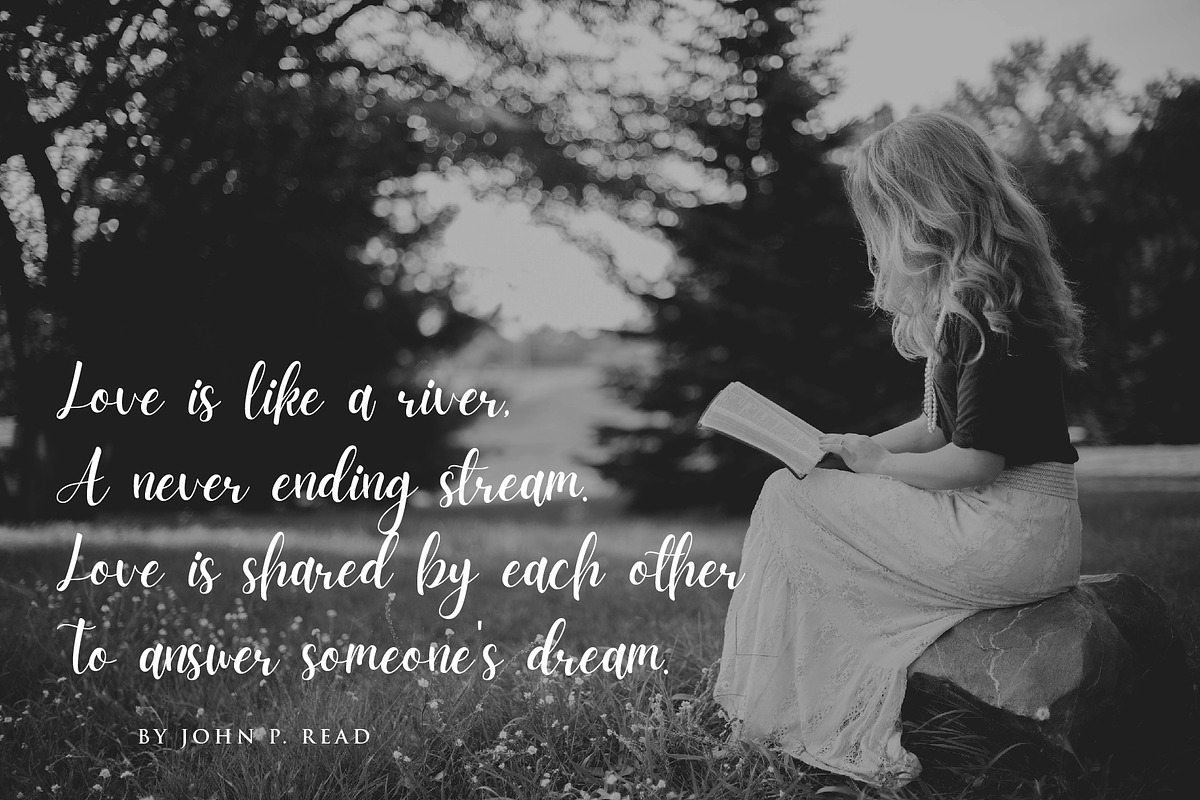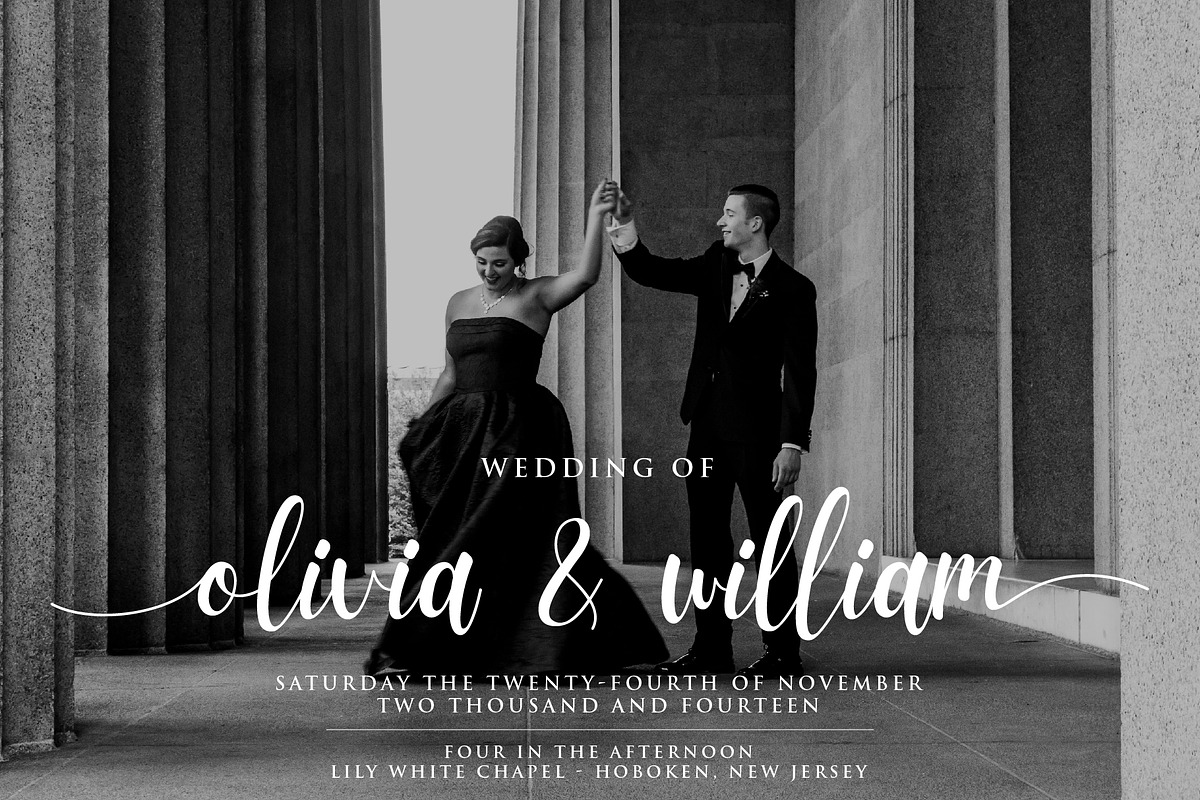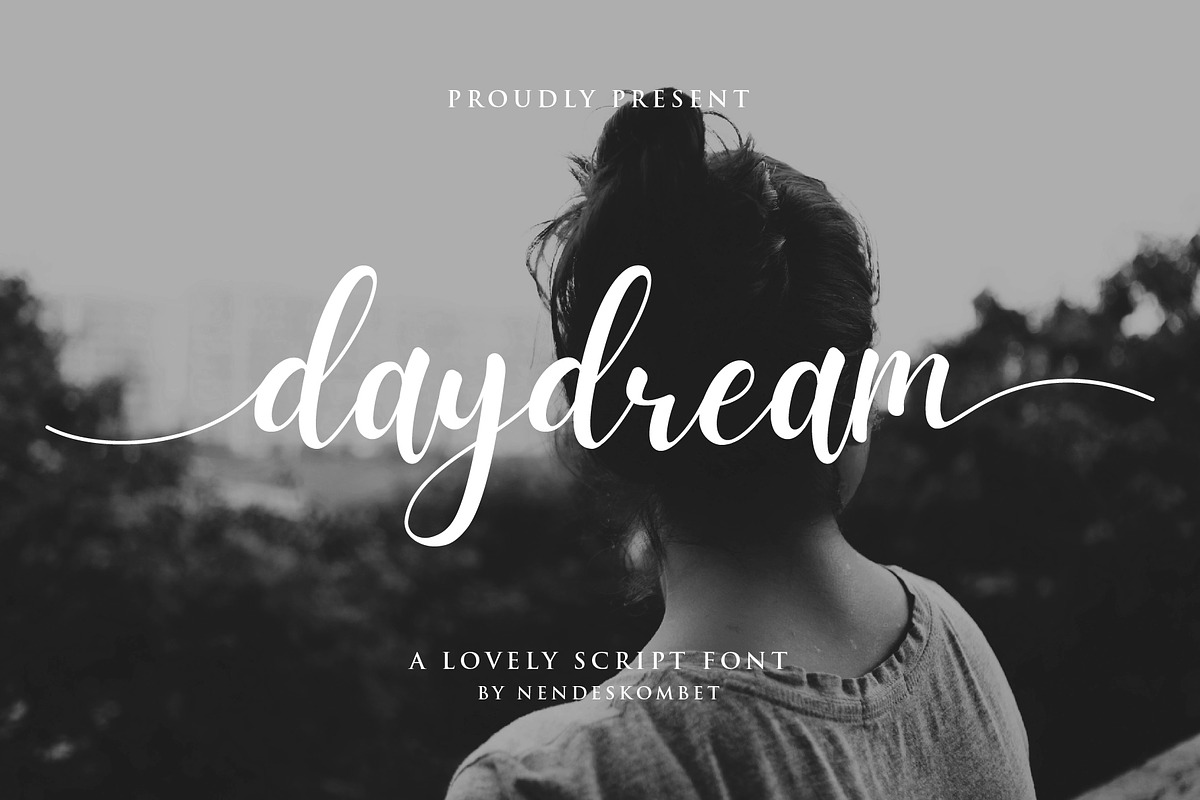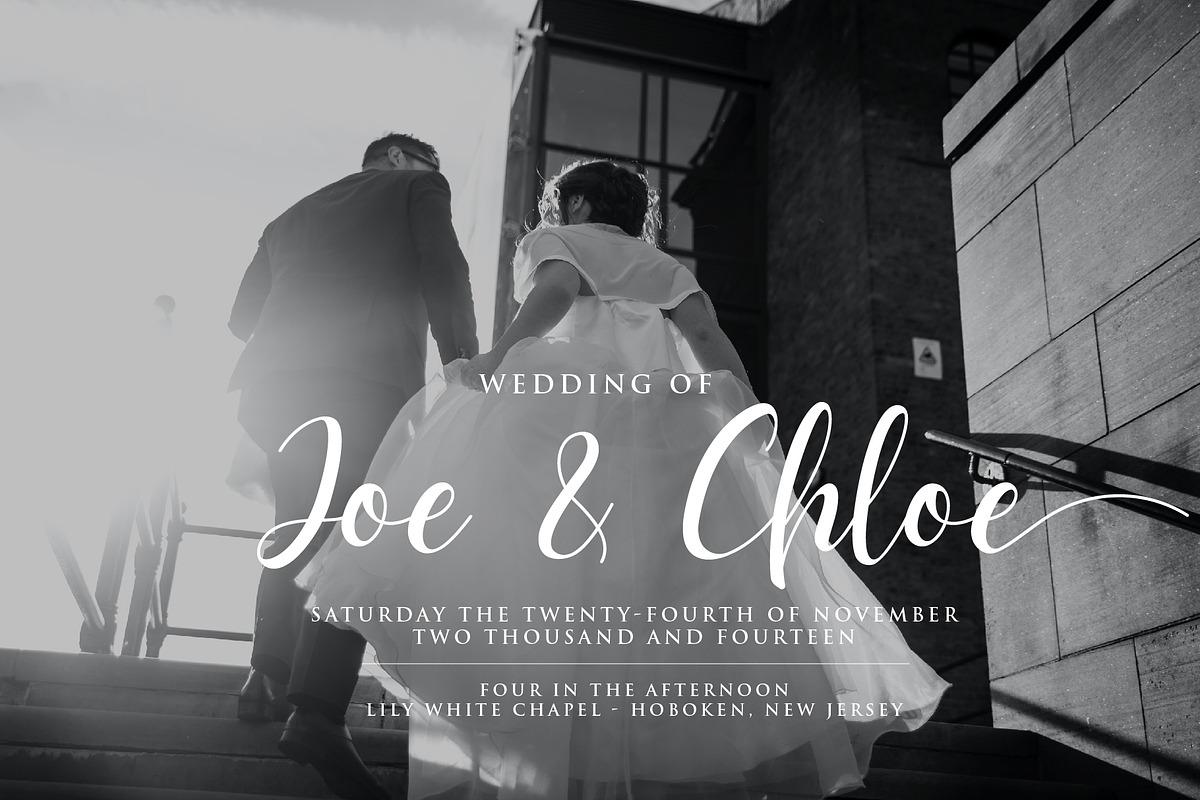
daydream - a lovely script font
Introducing a lovely script font, daydream!
Daydream is a beautiful and cute script font, gorgeous wedding calligraphy and trending minimal branding designs.
This beautiful font pair is for those who are needing of elegance and stylish for their designs and particularly well suited for wedding invitations and feminine branding.
daydream - a lovely script font by NendesKombet Studio fits naturally into Branding, posters, packaging, typography.